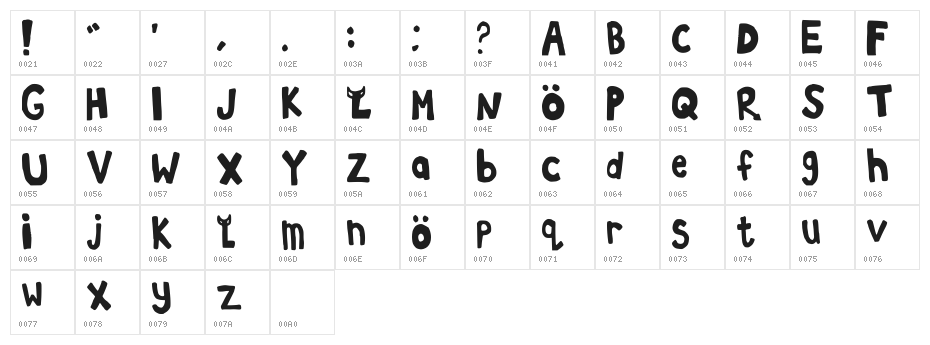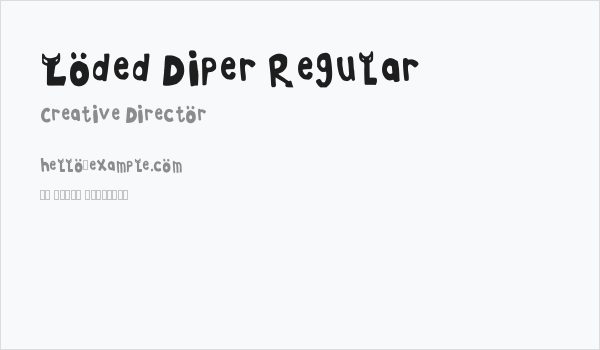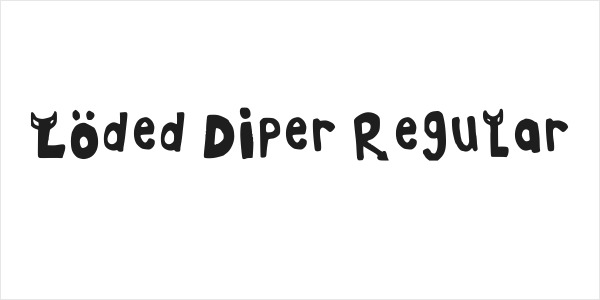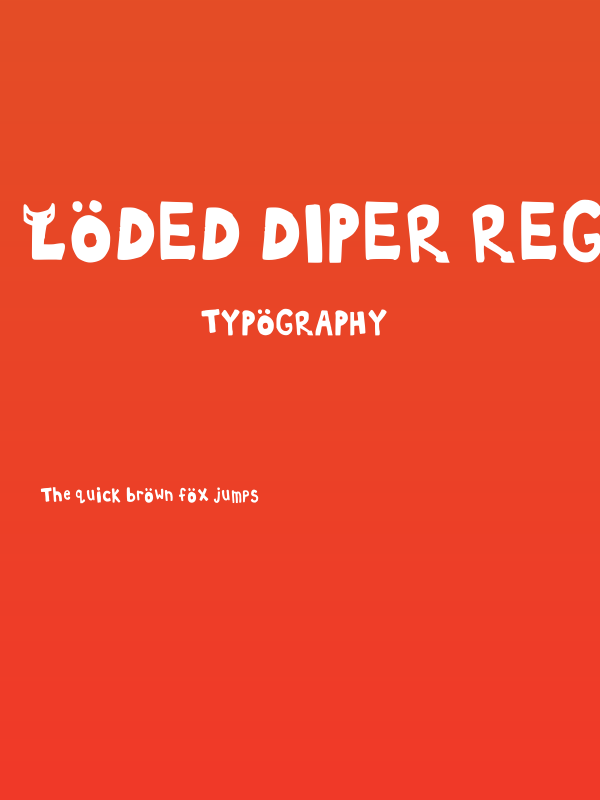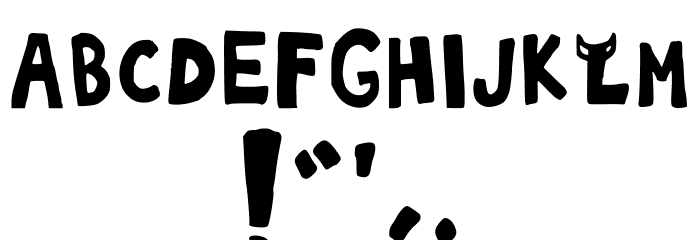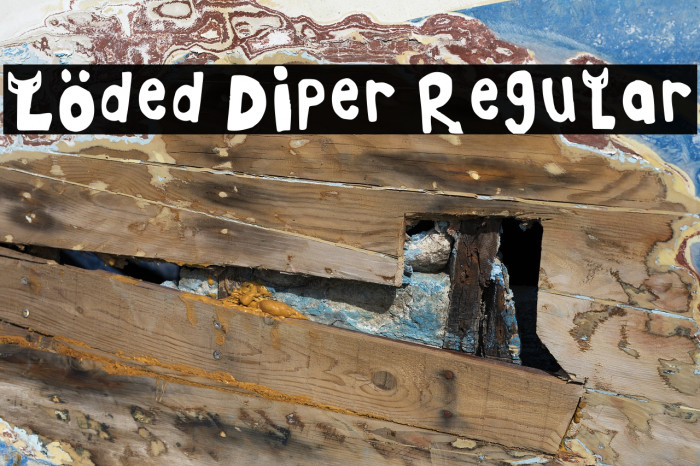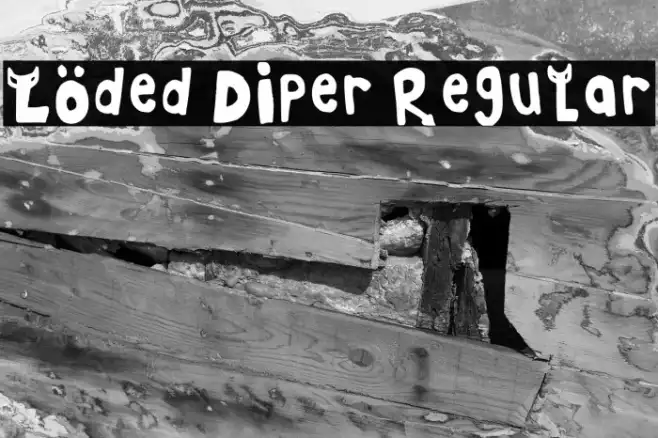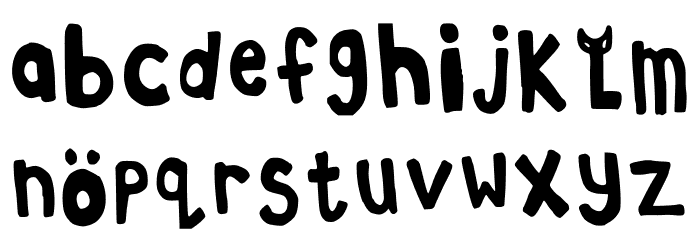
Loded Diper Regular Font
Loded Diper Regular Description
This font features a playful and bold style with a hand-drawn appearance. The characters are irregular and quirky, giving it a lively and energetic feel. The uppercase and lowercase letters are distinct, with some characters having unique embellishments, such as the horns on certain letters. The font includes a full set of uppercase and lowercase letters, numbers, and a selection of special characters. Its uneven strokes and whimsical design make it stand out, perfect for projects that require a fun and informal touch.
| Proposed Projects | Ideal for children's book covers, comic strips, playful branding, and event posters. |